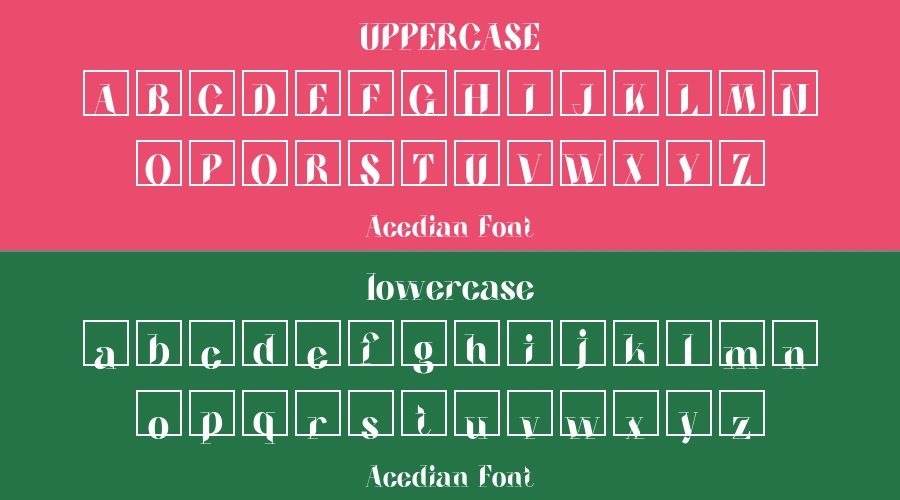
About Acedian Font
Designed with precision, Acedian Font merges precise joints with memorability in every character. This versatility makes it particularly effective for magazine layout, where flexibility and sophistication directly impact communication quality. Each letterform demonstrates meticulous craftsmanship.
Technical excellence shines through elements like flared stems and arbitrary fractions, enhancing typographic versatility. In instruction steps settings, Acedian Font proves its worth through superior screen rendering. The thoughtful execution of serif length and technical tradition ensures professional results.